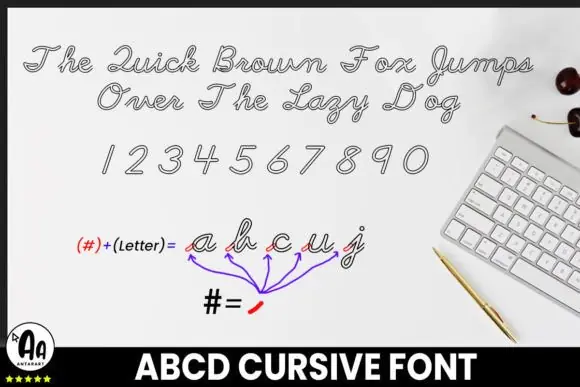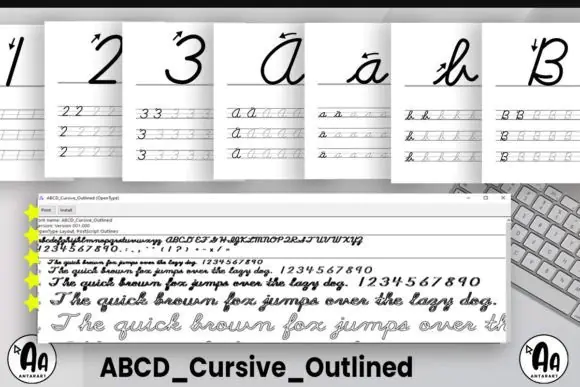
Abcd Cursive Outlined Font | Handwriting Practice Typeface for Cursive Worksheets, Tracing Pages, Kids Learning, Homeschool & Teacher Resources
Create clear, engaging, and educational handwriting materials with Abcd Cursive Outlined Font, a handwritten cursive outline font designed for making worksheets, tracing pages, practice sheets, and printable learning resources. This font is a useful tool for teachers, parents, homeschoolers, tutors, and worksheet creators who want to help children learn cursive handwriting in a fun and interactive way.
With its outlined cursive letter style, this font makes it easy to create practice pages where learners can follow the letter shapes, improve writing flow, and understand proper cursive formation. It can be used in common document, design, and worksheet-making software, making it practical for creating thousands of custom handwriting worksheets.
This font is perfect for classroom lessons, homeschool activities, printable cursive workbooks, alphabet tracing sheets, literacy practice pages, and beginner handwriting exercises.
Design Style:
Educational, cursive, outlined, handwritten, worksheet-ready, kid-friendly, clear, practical, interactive, and classroom-focused.
Use Abcd Cursive Outlined Font to create beautiful handwriting practice resources that make cursive learning clearer, easier, and more enjoyable for young learners.